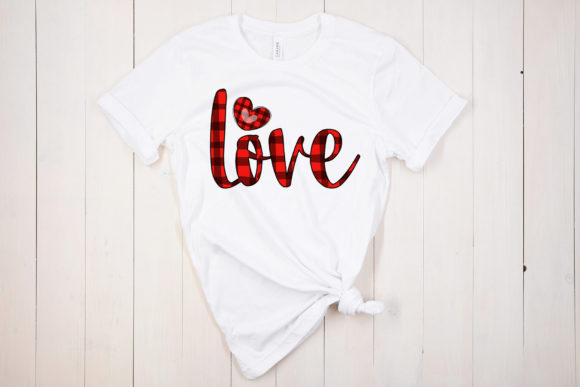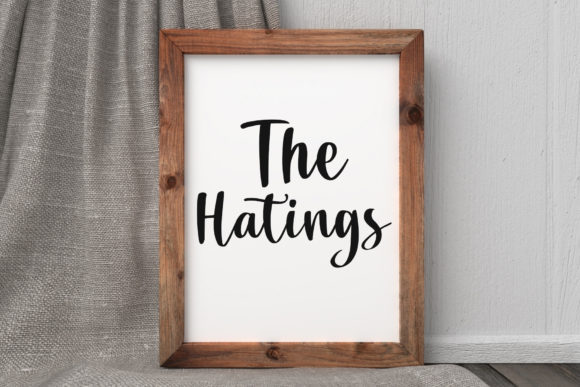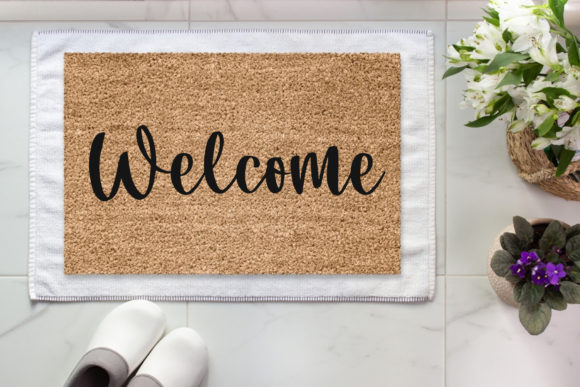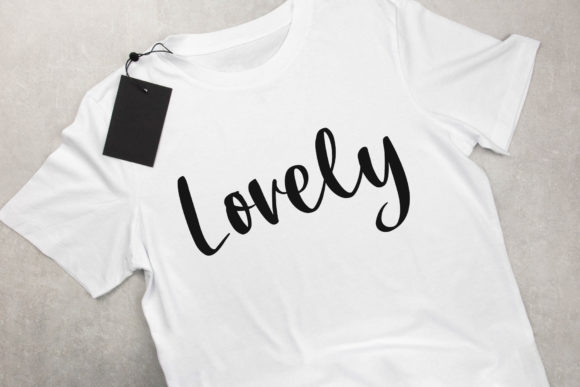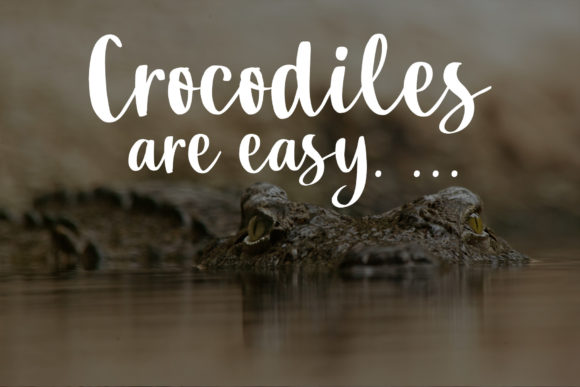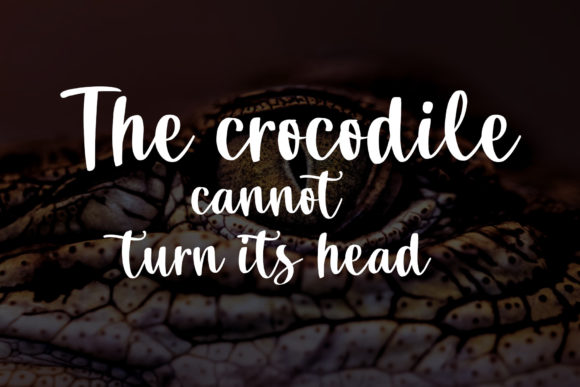
Crocodile Script Font: Elevate Your Designs with Elegance and Flair
In the world of typography, a font can make or break a design. It’s the perfect blend of style, elegance, and personality that can elevate a project from ordinary to extraordinary. If you’re a designer, crafter, or simply someone who appreciates beautiful typography, then you’re in luck. Introducing the Crocodile Script Font, a delicate, elegant, and flowing handwritten font that’s sure to bring your most creative ideas to life.
The Beauty of Crocodile Script Font
Crocodile Script is a stunning example of a handwritten font done right. Its delicate and elegant strokes exude a sense of sophistication and refinement, making it perfect for a wide range of design applications. From wedding invitations and branding materials to packaging and digital media, this font is sure to impress. The beautiful and well-balanced characters are meticulously crafted to ensure that each letter flows seamlessly into the next, creating a sense of continuity and harmony.
One of the standout features of Crocodile Script Font is its incredible versatility. Its elegant and flowing design makes it suitable for a wide pool of designs, from modern and minimalist to vintage and ornate. Whether you’re creating a logo, brochure, or social media graphic, this font is sure to adapt and shine. Its unique charm and character will add a touch of personality to your designs, setting them apart from the ordinary and making them truly unforgettable.
As a designer or crafter, you’re always on the lookout for new and exciting ways to express your creativity. Crocodile Script Font is the perfect addition to your toolkit, offering a fresh and inspiring way to bring your ideas to life. Whether you’re working on a personal project or a client’s brief, this font is sure to spark your imagination and help you create something truly special. Its delicate and elegant design makes it perfect for a wide range of applications, including:
- Branding materials and logos
- Packaging and labeling
- Digital media and social graphics
- Handmade crafts and DIY projects
Why Choose Crocodile Script Font?
With so many fonts to choose from, why should you choose Crocodile Script Font? Here are just a few reasons why this font stands out from the crowd:
- Unique and distinctive design: Crocodile Script Font has a one-of-a-kind design that’s sure to grab attention and make your designs stand out.
- Elegant and sophisticated: Its delicate and flowing strokes exude a sense of refinement and luxury, making it perfect for high-end designs.
- Highly versatile: This font is suitable for a wide range of design applications, from modern and minimalist to vintage and ornate.
- Easy to read and use: Despite its elegant design, Crocodile Script Font is highly legible and easy to use, making it perfect for body text and headlines.
Get Creative with Crocodile Script Font
In conclusion, Crocodile Script Font is a stunning handwritten font that’s sure to elevate your designs and bring your creative ideas to life. Its delicate and elegant design, versatility, and ease of use make it the perfect choice for designers, crafters, and anyone who appreciates beautiful typography. So don’t miss out on this amazing opportunity to take your designs to the next level. Try Crocodile Script Font today and discover the power of beautiful typography!